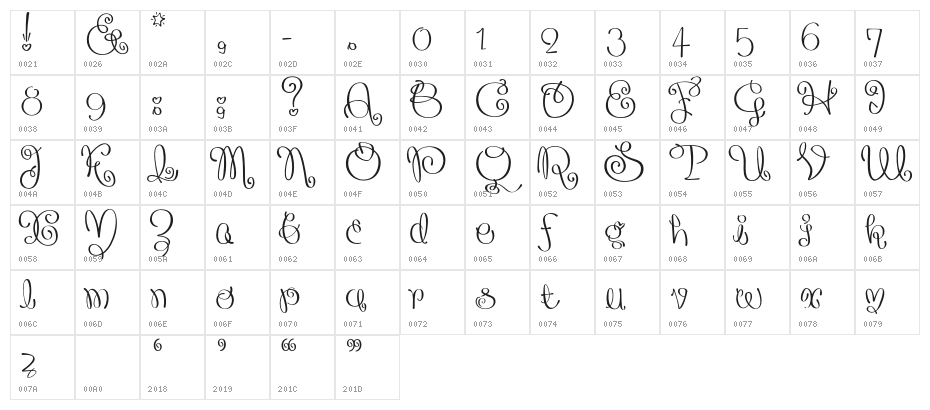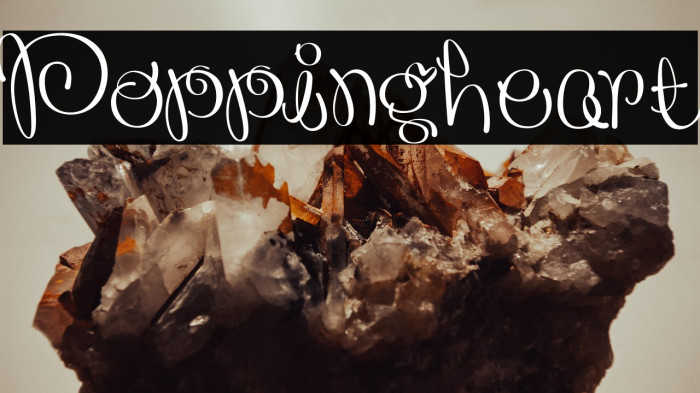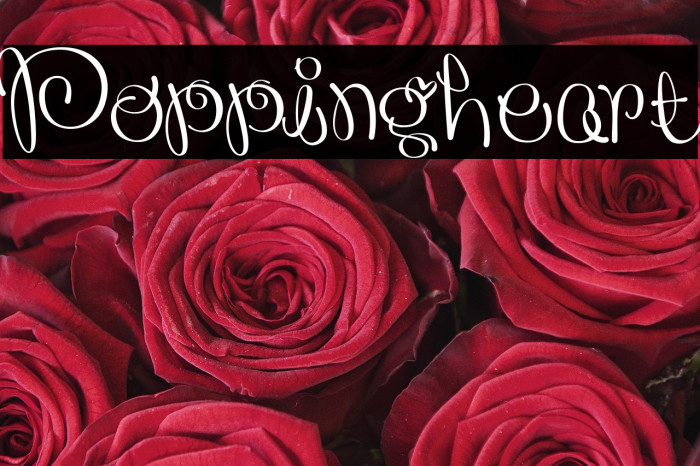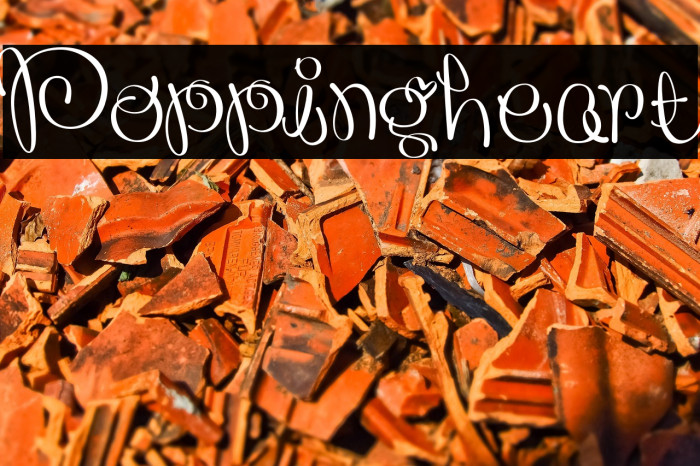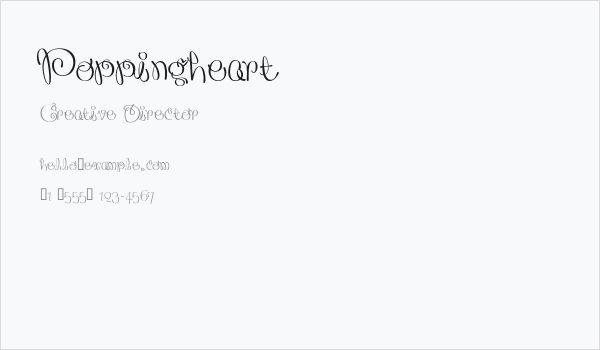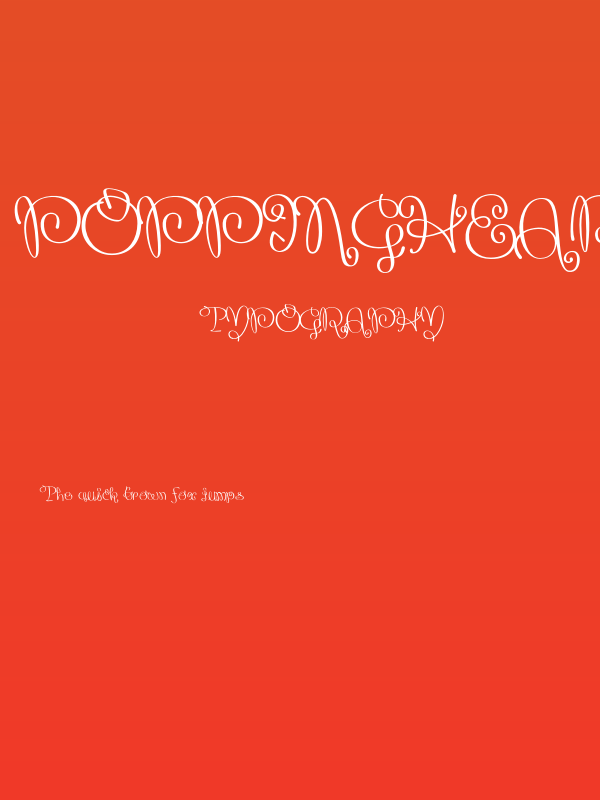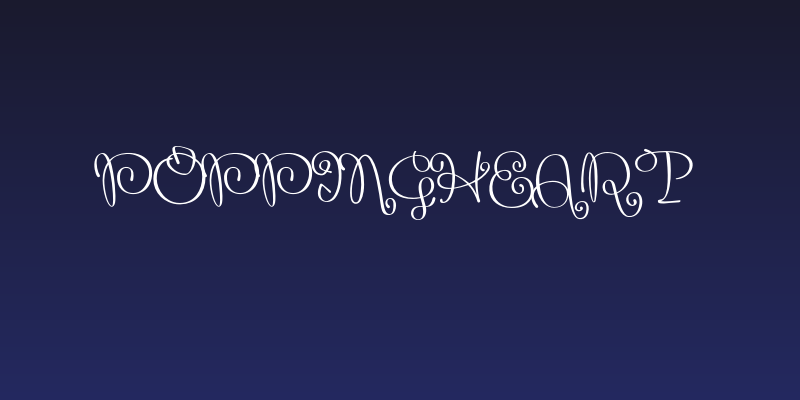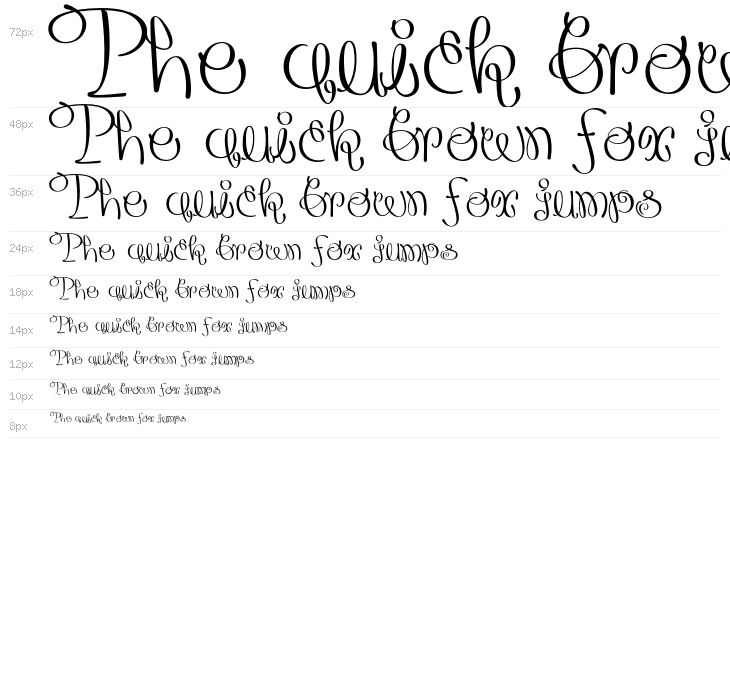
Poppingheart Font
Poppingheart Description
This font exudes a whimsical and playful charm, characterized by its curly and looping strokes that give each letter a unique and artistic flair. The uppercase letters are particularly elaborate, with intricate swirls and embellishments that make them stand out. The lowercase letters maintain a consistent style, with a slightly more subdued yet still decorative appearance. Numbers and special characters follow the same design principles, ensuring a cohesive look across all elements. The font's overall aesthetic is both fun and elegant, making it suitable for creative and expressive projects.
Use CaseLogos, Headlines, Invitations
Proposed ProjectsIdeal for wedding invitations, greeting cards, playful branding, and artistic posters.